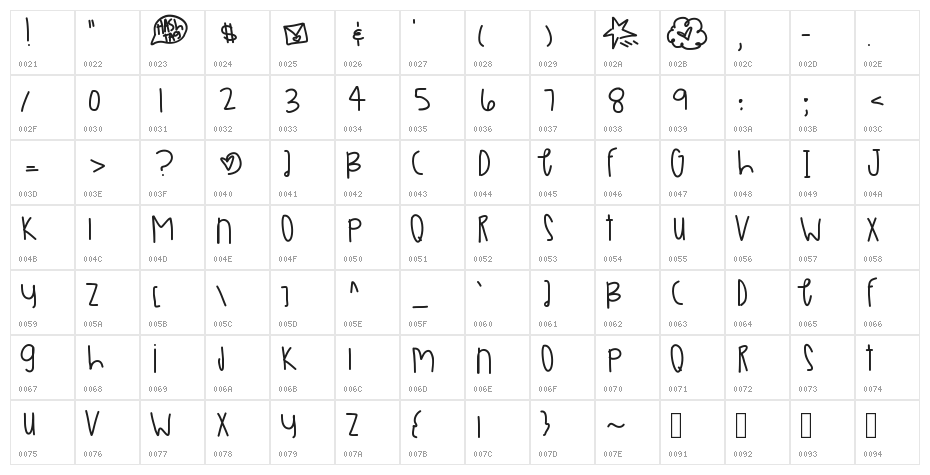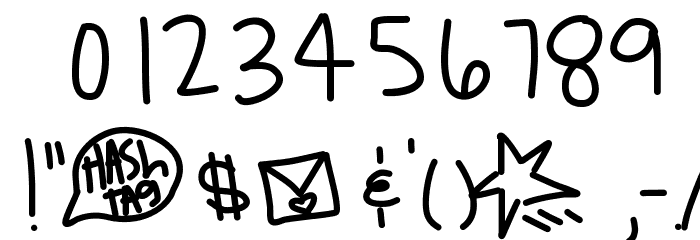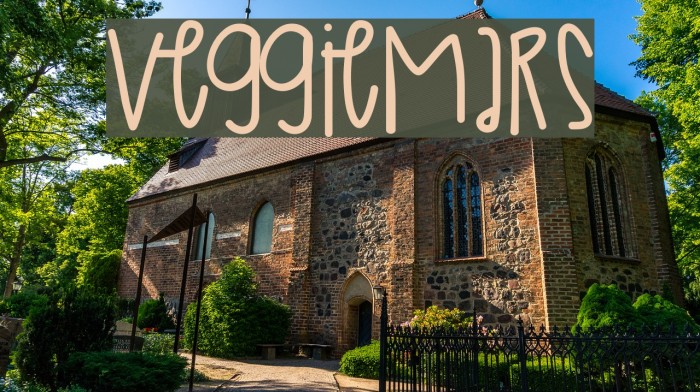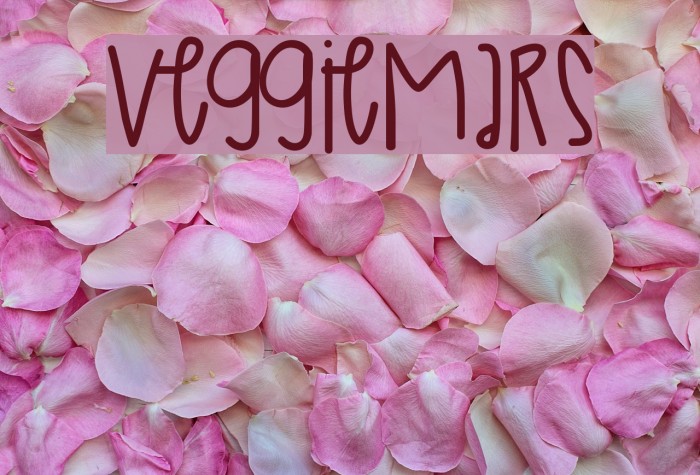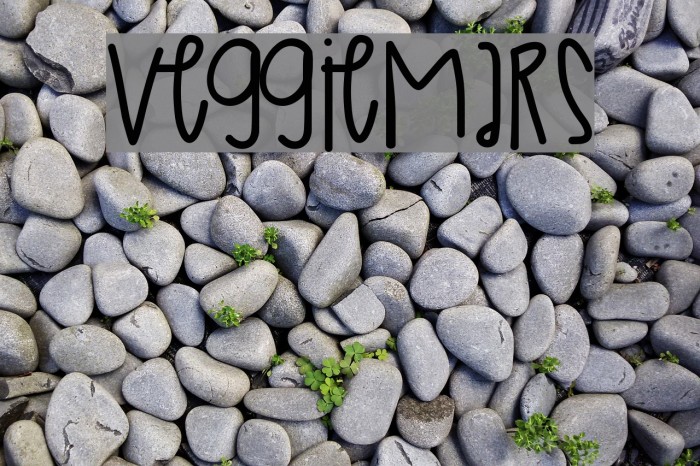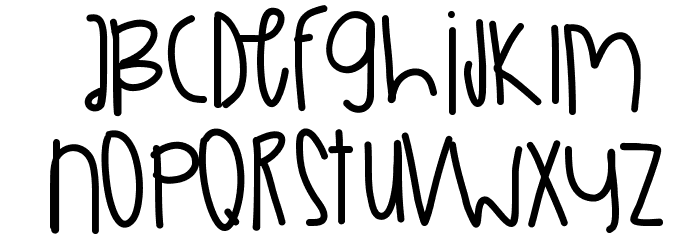
VeggieMars Font
VeggieMars Description
This playful and quirky handwritten font features a unique and casual style, characterized by its tall, narrow letters with rounded edges. The strokes are consistent in width, giving it a uniform appearance, while the slightly irregular shapes add a touch of whimsy. The uppercase and lowercase letters maintain a cohesive look, making it versatile for various design projects. The numerals and special characters complement the overall style, enhancing its usability. This font is ideal for projects that require a friendly and approachable aesthetic.
| Use Case | Logos, Headlines, Social Media |
| Proposed Projects | Great for children's books, greeting cards, playful branding, and social media graphics. |